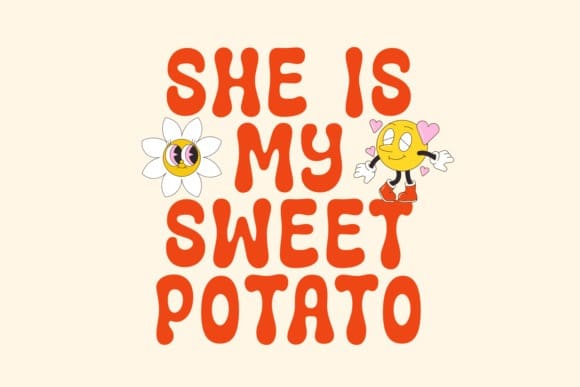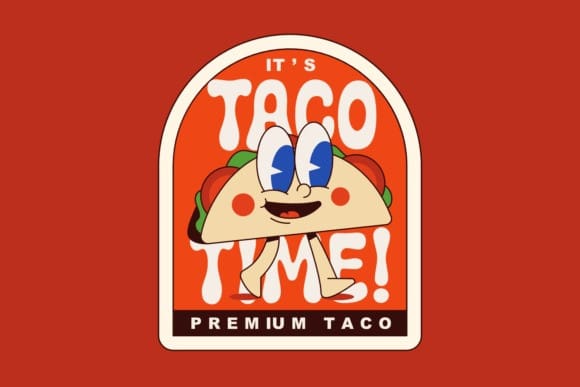
Kitschy Retro Font
Kitschy Retro Font, is a fun and groovy display font. Use this funky font to add that special retro touch to any design idea you can think of! Masterfully designed to become a true favorite, this font has the potential to bring each of your creative ideas to the highest level!